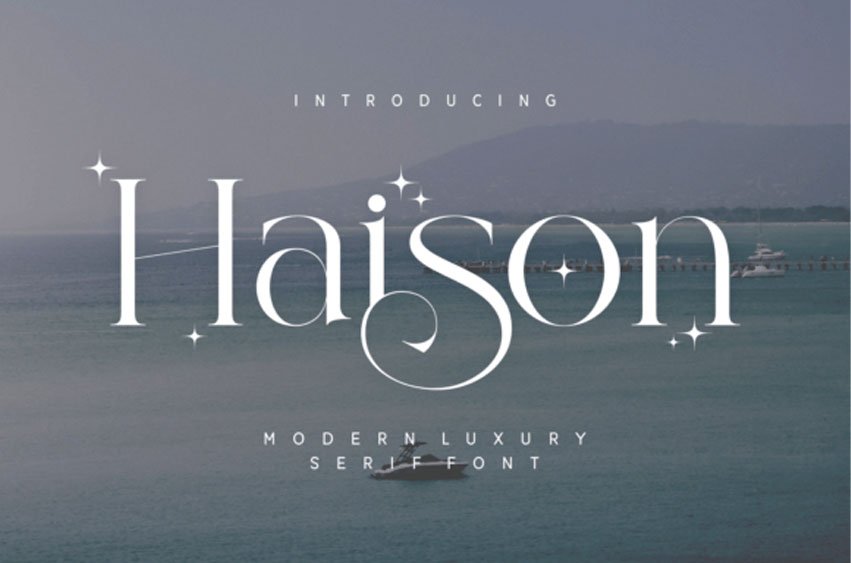
Haison is a sophisticated and luxurious serif font.
Whether you’re looking for fonts for Instagram or exquisite fonts for DIY projects, this font will turn any creative idea into a true piece of art!